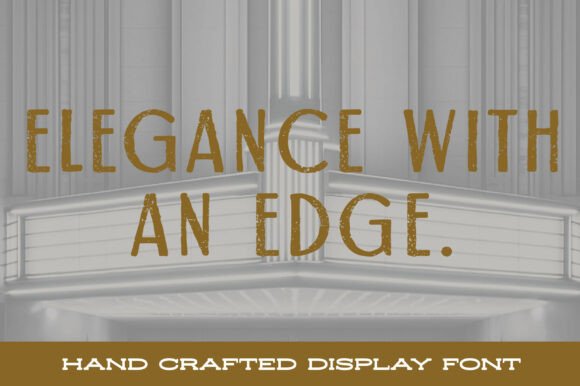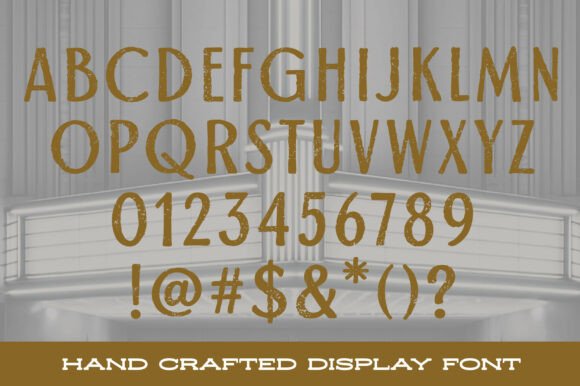
Gritty Gatsby Font: Elevate Your Design with Distressed Art Deco
Step into the roaring twenties with Gritty Gatsby, a powerful, hand-crafted display font that embodies the essence of distressed Art Deco aesthetics. This stunning typeface is designed to transport your design back in time, evoking the opulence and grandeur of the Prohibition era. With its strong, geometric lines and beautifully applied weathered texture, Gritty Gatsby commands attention and adds a touch of vintage authenticity to any design project.
The Essence of Art Deco
Art Deco, a design style that emerged in the 1920s, is characterized by its use of geometric shapes, metallic materials, and ornate decorations. Gritty Gatsby perfectly captures the essence of this iconic style, with its distressed texture and strong, geometric lines. The font’s unique glyphs are meticulously crafted to convey the opulent yet slightly worn feeling of a classic speakeasy or Prohibition-era poster.
Gritty Gatsby is not just a font – it’s a design statement. Its bold, historical presence makes it the ultimate tool for creating impactful posters, retro logotypes, dramatic movie titles, vintage packaging, and album art. Whether you’re a designer, craftsperson, or DIY enthusiast, Gritty Gatsby is the perfect choice for anyone looking to add a touch of sophistication and elegance to their design projects.
Key Features of Gritty Gatsby
- Distressed Art Deco Aesthetics: Gritty Gatsby features a beautifully applied weathered texture that gives it a rugged, vintage appeal.
- Strong, Geometric Lines: The font’s strong, geometric lines command attention and add a touch of sophistication to any design project.
- Unique Glyphs: Gritty Gatsby’s unique glyphs perfectly capture the opulent yet slightly worn feeling of a classic speakeasy or Prohibition-era poster.
- Hand-Crafted: This font is meticulously hand-crafted to ensure a high level of detail and authenticity.
Design Applications for Gritty Gatsby
Gritty Gatsby is a versatile font that can be used in a variety of design applications, including:
- Posters: Create eye-catching posters that demand attention with Gritty Gatsby’s bold, historical presence.
- Logotypes: Add a touch of vintage authenticity to your brand’s logotype with Gritty Gatsby’s distressed Art Deco aesthetics.
- Movie Titles: Create dramatic movie titles that evoke the grandeur of old Hollywood with Gritty Gatsby’s strong, geometric lines.
- Vintage Packaging: Add a touch of sophistication and elegance to your packaging design with Gritty Gatsby’s unique glyphs.
- Album Art: Create stunning album art that captures the essence of the Prohibition era with Gritty Gatsby’s distressed texture and bold, historical presence.
Why Choose Gritty Gatsby?
Gritty Gatsby is the perfect choice for designers and craftspersons looking to add a touch of vintage authenticity to their design projects. With its distressed Art Deco aesthetics, strong geometric lines, and unique glyphs, this font is sure to elevate your design and transport it back in time to the roaring twenties.
In conclusion, Gritty Gatsby is a powerful, hand-crafted display font that is sure to make a statement in any design project. With its distressed Art Deco aesthetics, strong geometric lines, and unique glyphs, this font is the ultimate tool for creating impactful posters, retro logotypes, dramatic movie titles, vintage packaging, and album art. Whether you’re a designer, craftsperson, or DIY enthusiast, Gritty Gatsby is the perfect choice for anyone looking to add a touch of sophistication and elegance to their design projects.